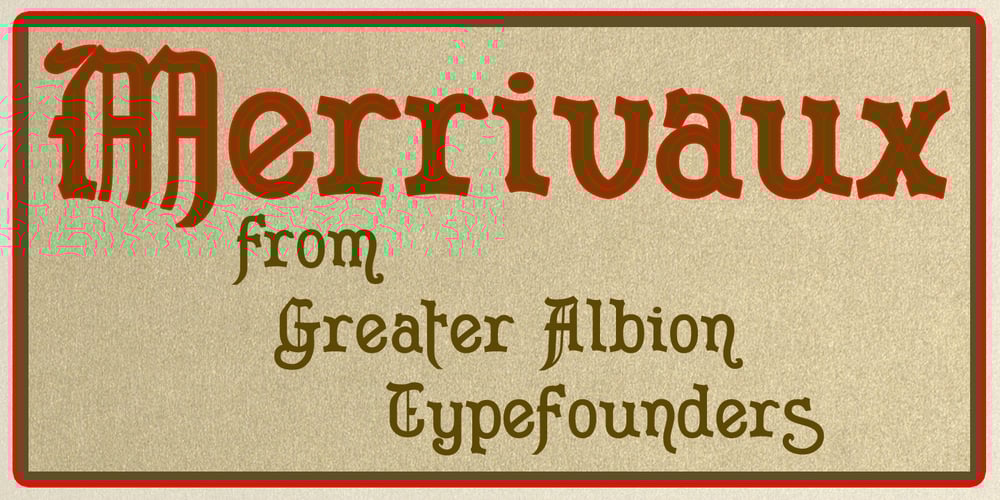
Merrivaux Font Family was designed by Paul James Lloyd and published by Greater Albion Typefounders. Merrivaux contains 2 styles and family package options. Some time ago, when we were working on our Merrivale family, it occurred to us that an adaptation of the design, incorporating selected Blackletter elements, would be in the best traditions of 19th and 20th century blackletter revivals, which combine all the spirit of the middle ages with modern legibility-think of Goudy Medieval as an example. In the case of Merrivaux (best quality faux-medieval name there!) we’ve produced a typeface which has the ready legibility of Roman titling, but which gives a subtle blackletter feel. The regular form of Merrivaux is incised with a visible midline, a solid form with identical metrics is also offered. Both forms include a range of opentype features including ligatures, fractions, old style numerals and terminal forms. Merrivaux is ideal for posters, signage and design work, where a touch of that ‘Olde-Worlde’ feel is needed.